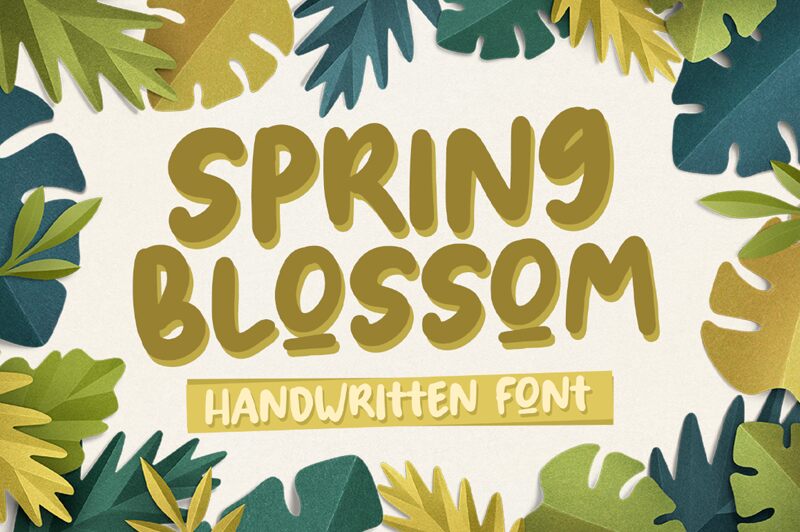
Spring Blossom, a vibrant and playful font designed by Phantom Studio, is an ideal choice for captivating display projects. With its bold weight and cheerful cartoon style, this font adds a touch of whimsy to children's book covers, animated movie titles, and greeting cards. Its unique design lends itself perfectly to logo creation for toy stores or kids' clothing brands. Whether you're crafting eye-catching posters or designing interactive game interfaces, Spring Blossom will infuse your projects with a delightful charm that is sure to captivate the young and young at heart.
Spring Blossom